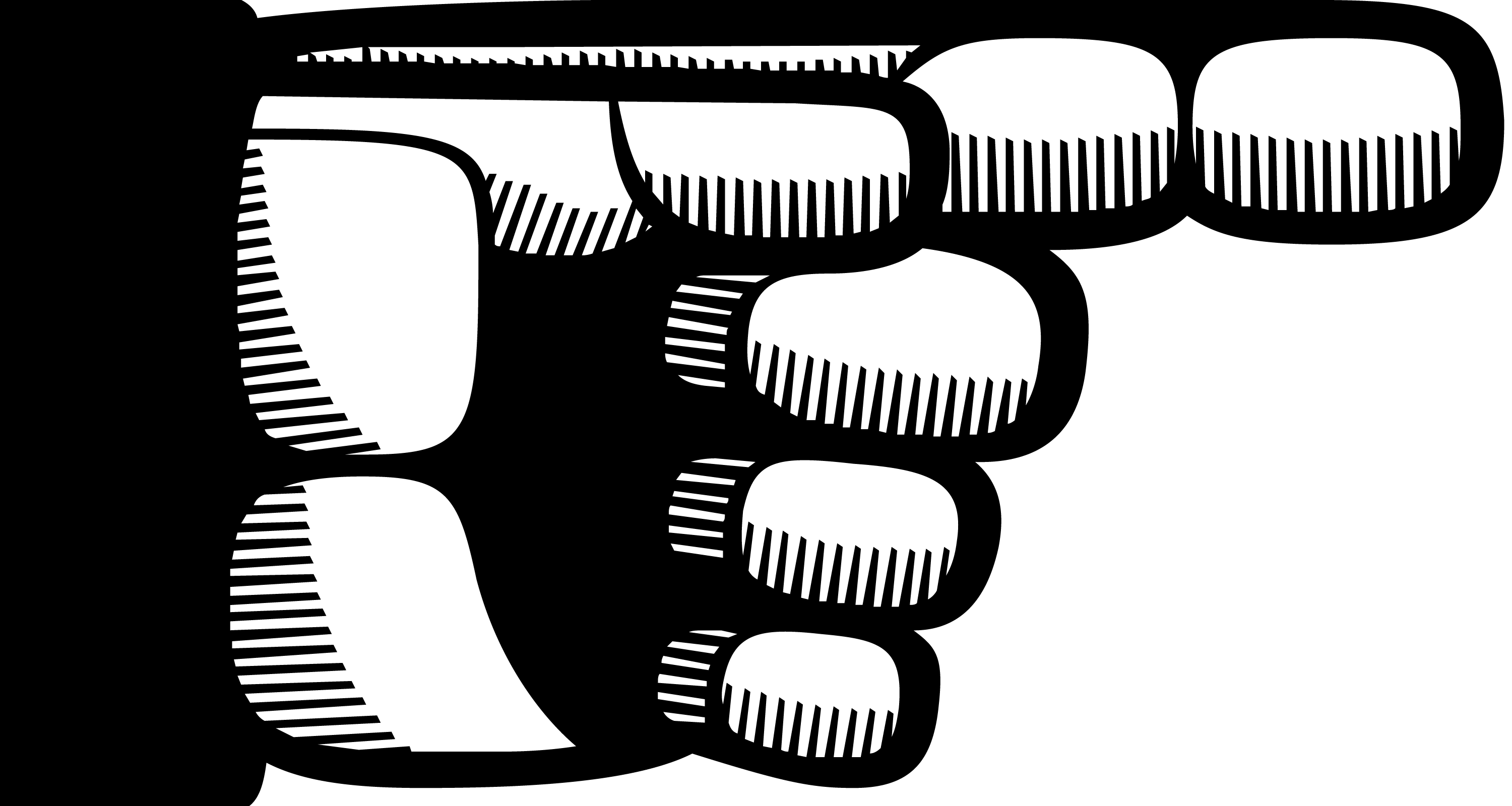
Contextual alternates: When kerning isn’t enough, Manicotti uses contextual alternates to improve certain letter combinations.
Case-sensitive punctuation: In all-caps settings, Manicotti repositions quotes and resizes brackets.
Discretionary ligatures: Decorative TT and OO ligatures help mix things up a little.
Unicase: Can’t decide between uppercase and lowercase? Stylistic Set 1 substitutes unicase alternates.
Swash alternates & snap-on swashes: Manicotti contains a set of decorative swash alternates, and some ending swashes are found in Stylistic Set 2. Additionally, a collection of snap-on swashes is accessible through the Ornaments feature.
Roman ampersand: Stylistic Set 3 substitutes the default ampersand with a more traditional alternate.
Ornaments: Manicotti comes with a bunch of ornaments, including dingbats, arrows, and pointing hands.